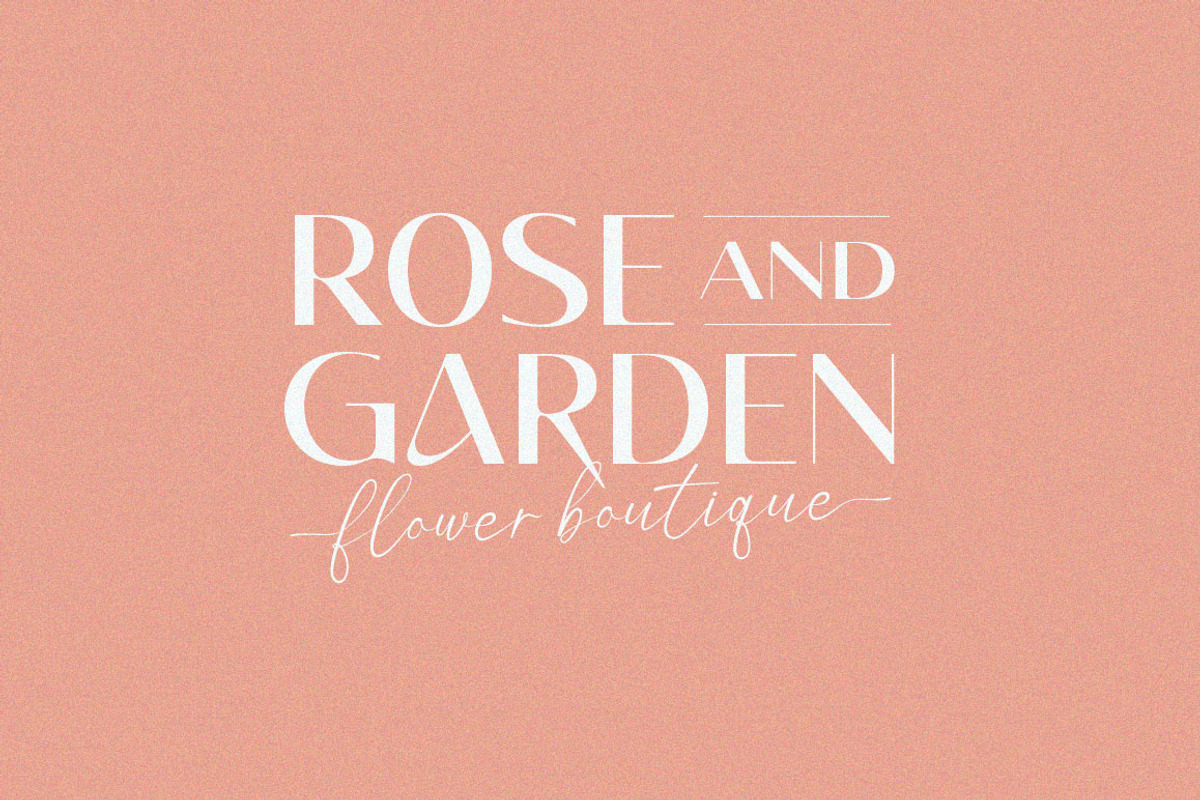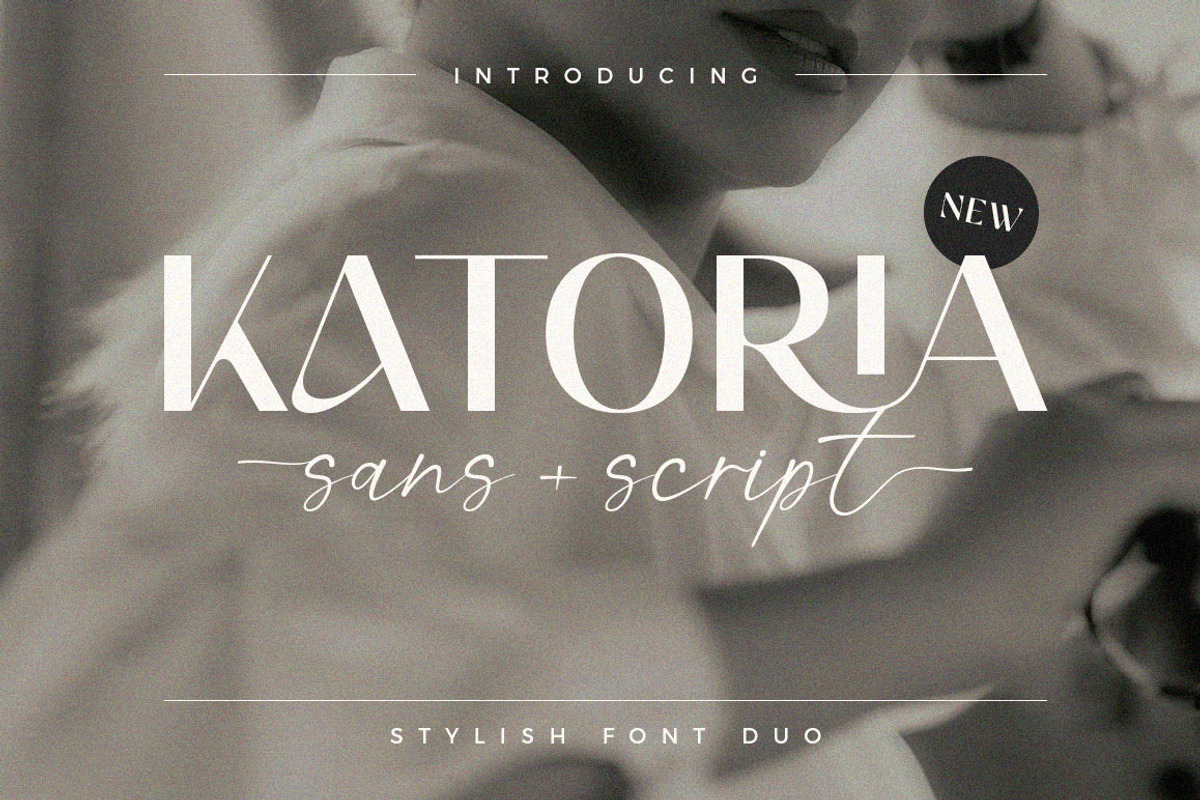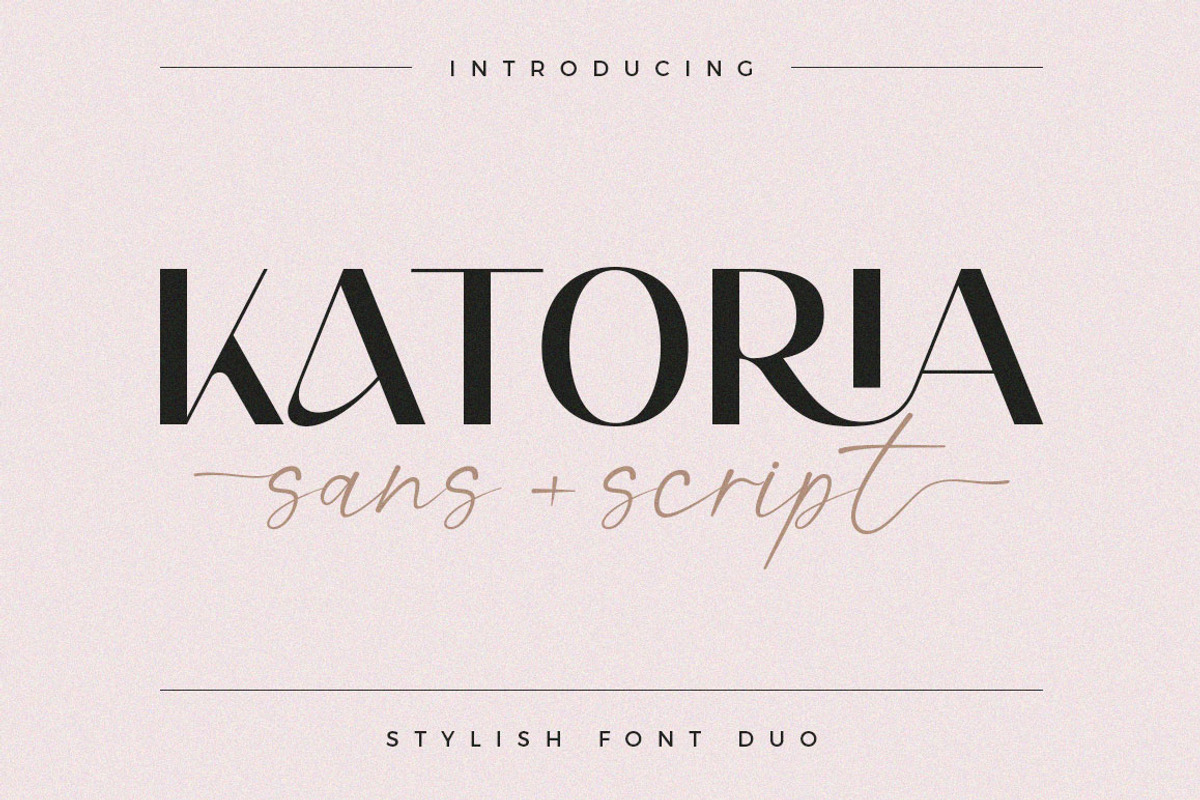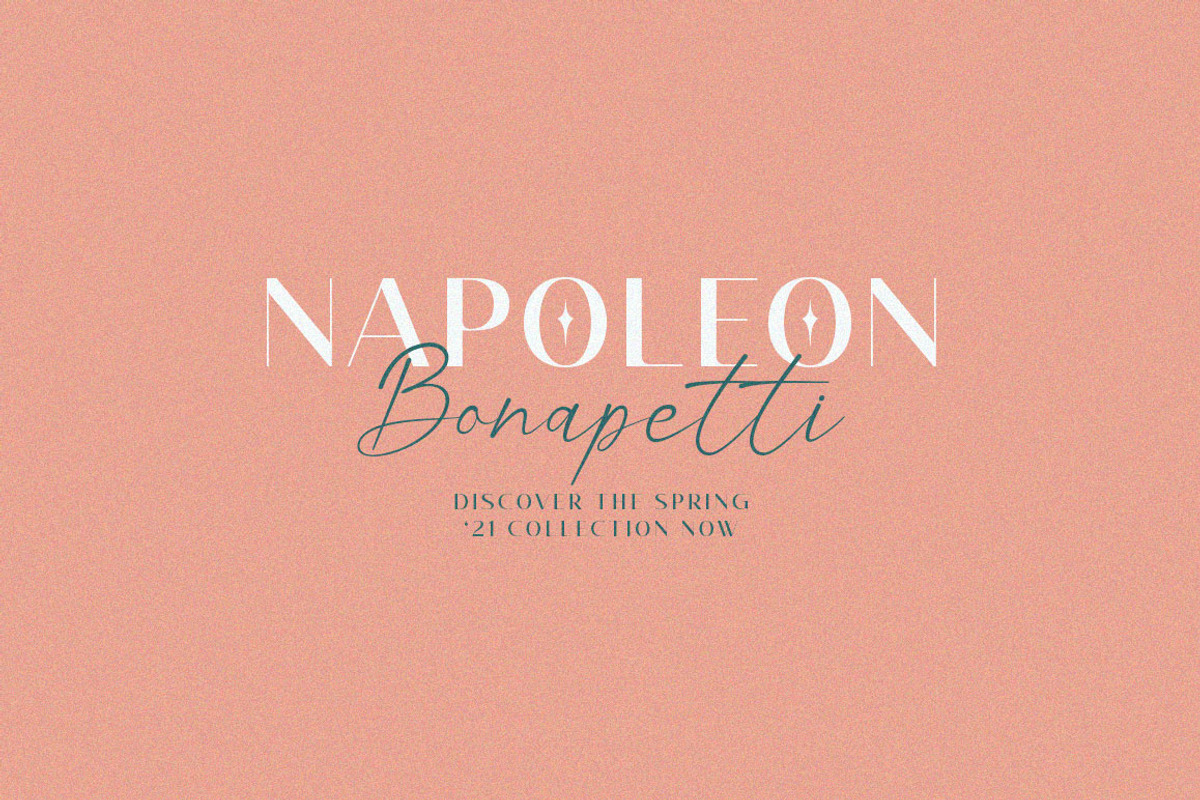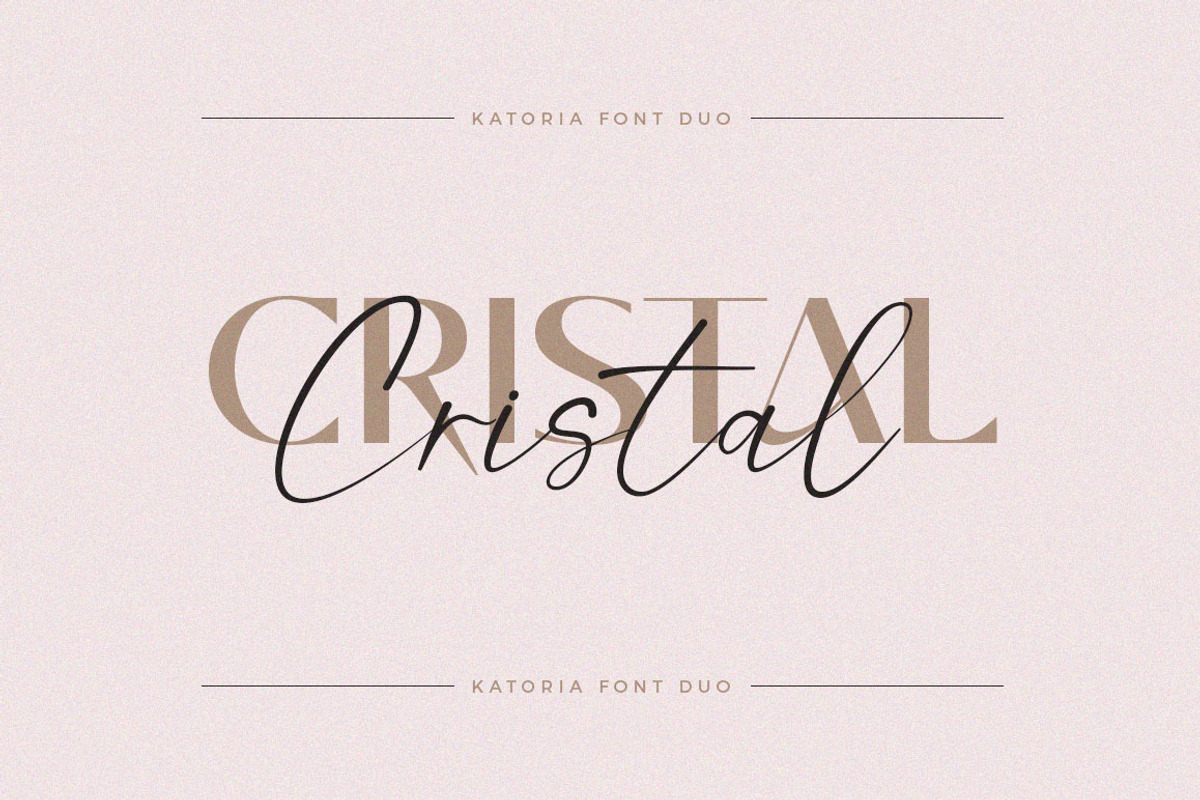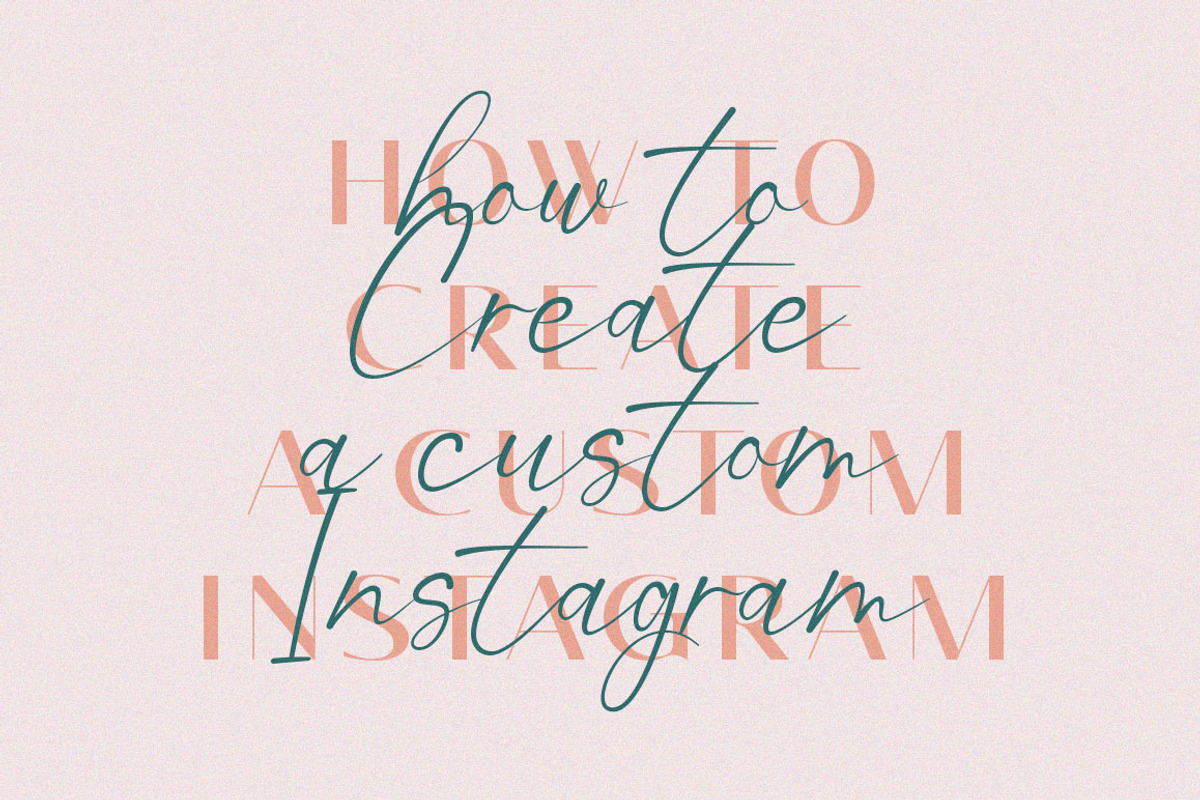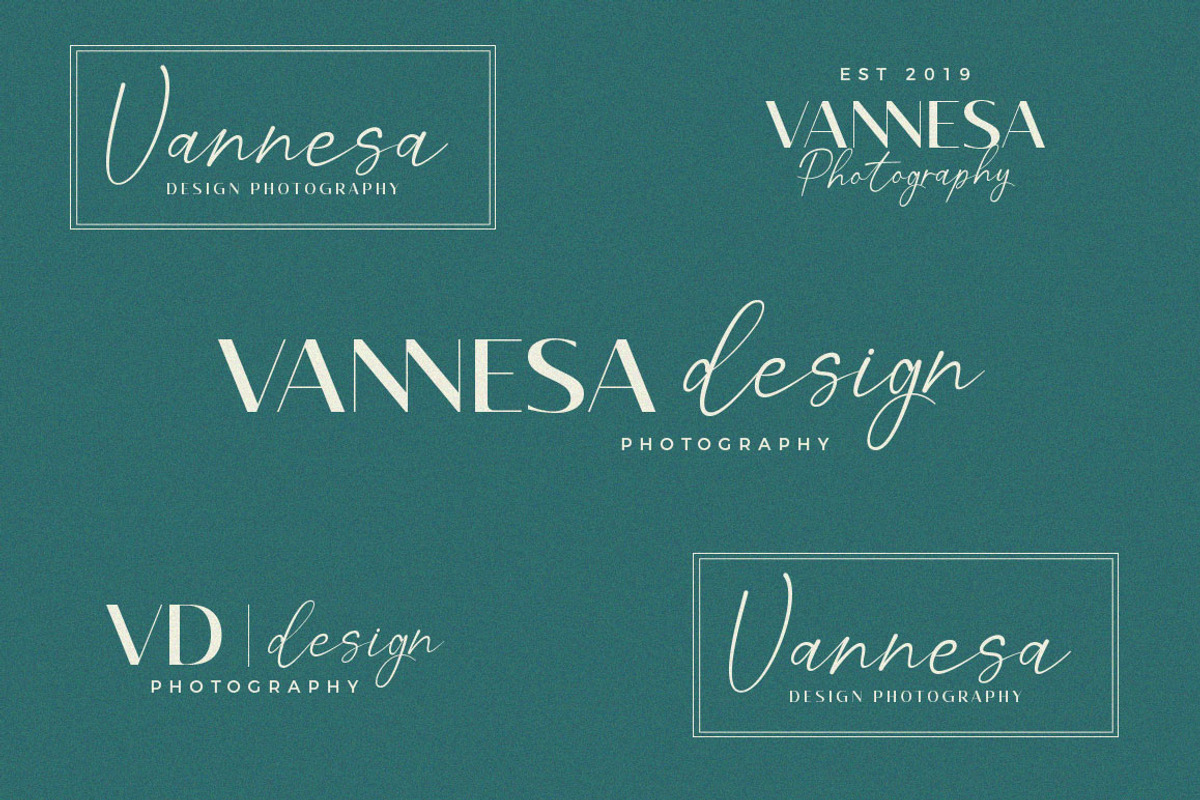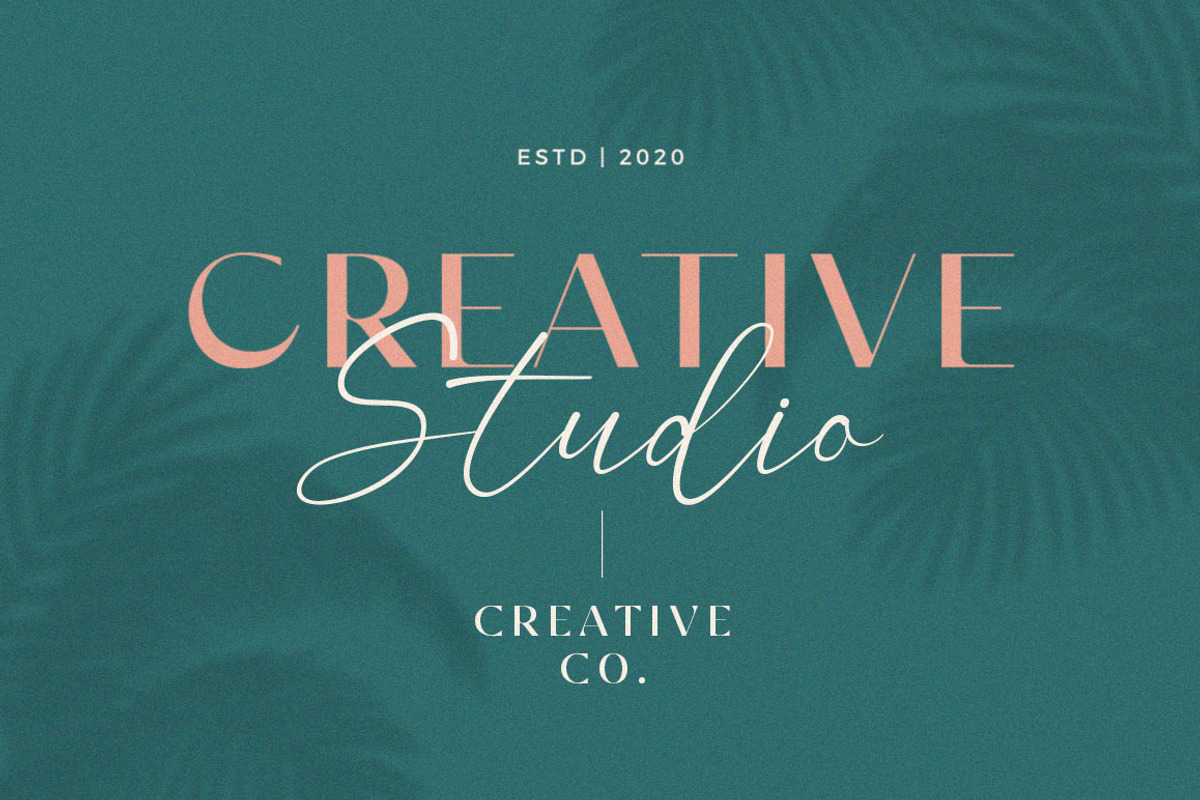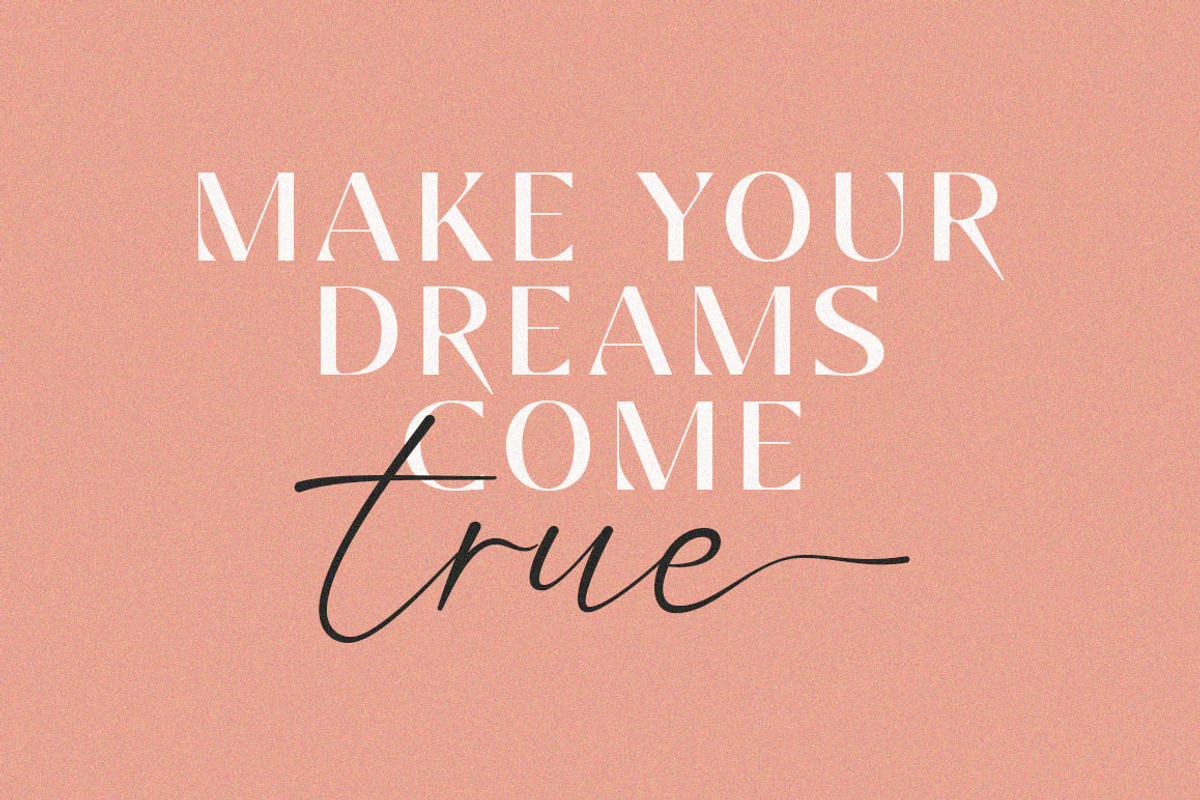
Katoria Font Duo / Script & Sans
Introducing Katoria is a luxury font duo with elegant combinations. You can use it as an addition or main. In this font, all letters are Uppercase, you will find various ligatures and alternatives that will help you create a unique design for your project, try changing the ligatures and alternatives and you will see how many options you can choose which are perfect for logos, magazines, social media, and more. This font is easy to use and has OpenType features.